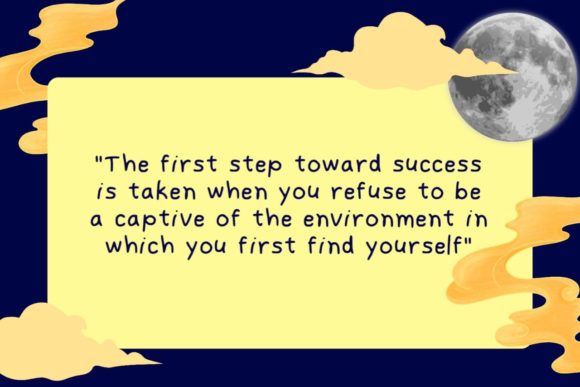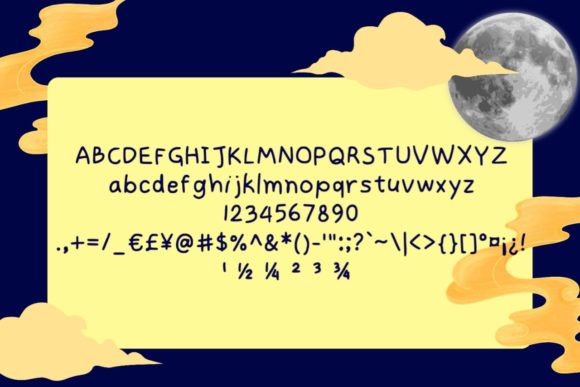
Introduction to Moonlight Ai Font Font
Fonts play a crucial role in design, and the Moonlight Ai Font font is a typeface that brings both character and versatility to any project. Whether you’re working on a branding project, a website, or a print design, the Moonlight Ai Font font offers a unique style that can elevate your work.
Moonlight Ai is a cute and simple handwriting font that can be used for your love letters, greeting cards, or anything you need to write on it.
Key Features of Moonlight Ai Font Font
Why Choose Moonlight Ai Font Font?
The Moonlight Ai Font font is more than just a typeface – it’s a design tool that helps you communicate your message with style and clarity. Its unique character set and versatile design make it suitable for a wide range of applications, from elegant invitations to bold headlines.
With its carefully crafted letterforms and balanced proportions, the Moonlight Ai Font font ensures readability and visual appeal across all mediums.
What makes Moonlight Ai Font font special?
The Moonlight Ai Font font stands out with its unique design, exceptional readability, and versatility across various design applications.